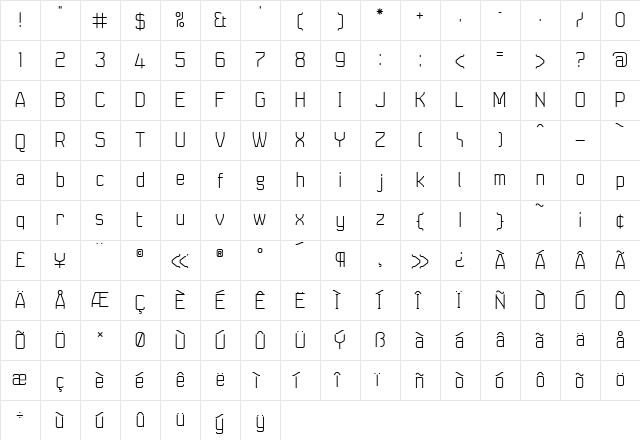
Seize Light
Design Context for Seize Typeface
Seize takes a measured approach to typography — its balanced proportions and neutral character make it a reliable workhorse for both digital and print work. Its slender proportions lend an understated elegance to any composition.